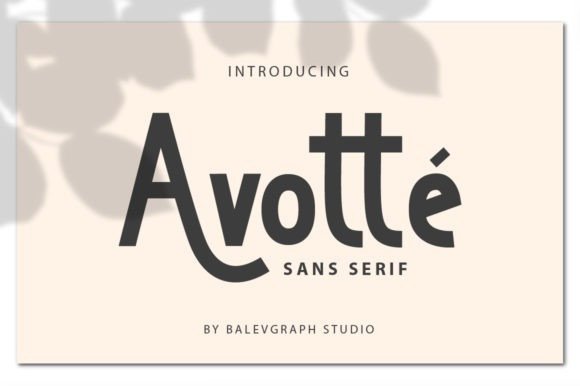
Avotte Font
Avotte Sans Serif Font is a sans serif font created by Balevgraph Studio with an engaging character. It’s playfulness make it great for creative projects, be it inspirational wall posters or for communicating your brand. This font is great for branding materials, quotes, business cards, headings, blogs, logos, Cricut artwork, posters and more!